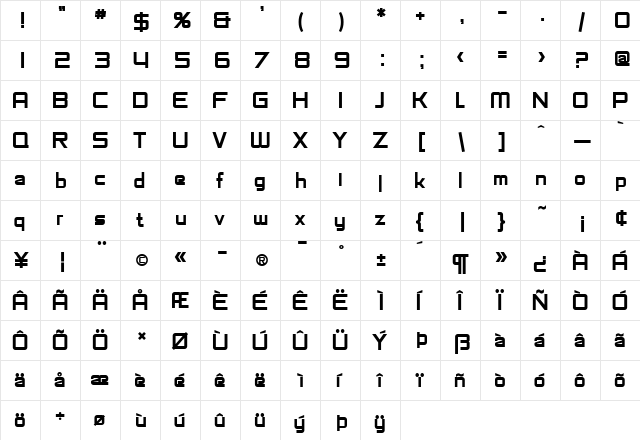
SF Chaerilidae Bold
| Designer | ShyFonts Type Foundry |
Design Context for SF Chaerilidae Typeface
SF Chaerilidae offers clean, dependable letterforms without strong stylistic allegiance, making it a practical choice for designers who need flexibility. The heavy weight commands attention and anchors typographic hierarchies.